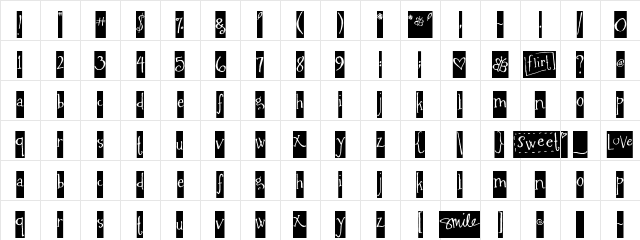
MA Flirty BLOCKED Regular Free Font
MA Flirty BLOCKED Regular
Design Context for MA Flirty BLOCKED
MA Flirty BLOCKED is a composed and adaptable typeface that performs quietly and consistently across a wide range of design contexts.
Pro Tip: Use MA Flirty BLOCKED in both headline and body roles to test its range before committing to a single application.